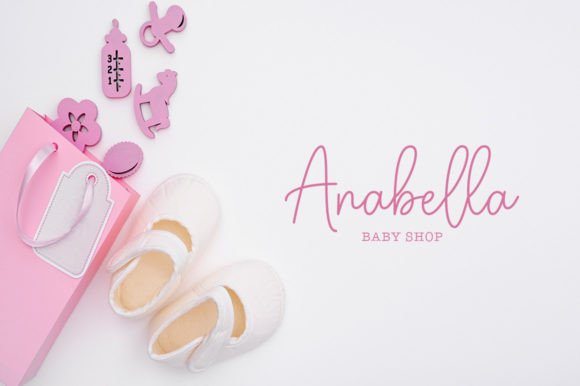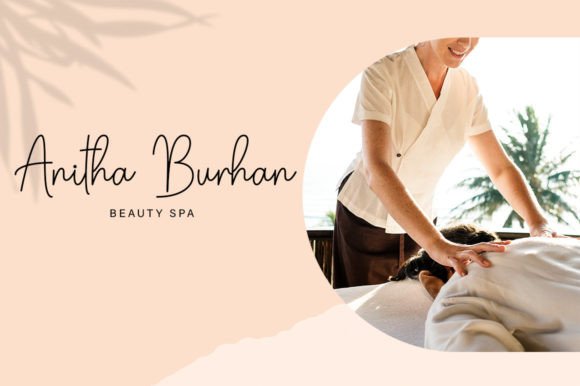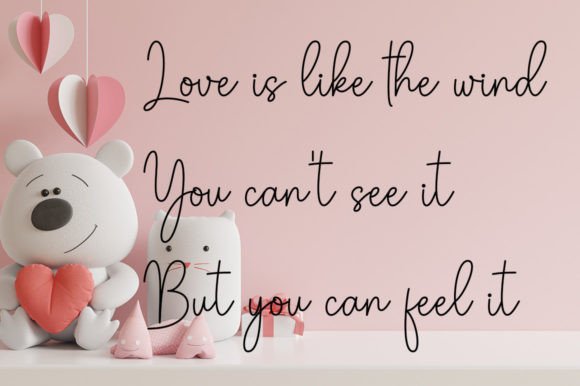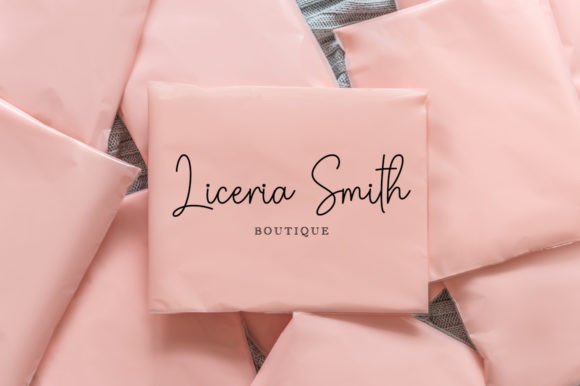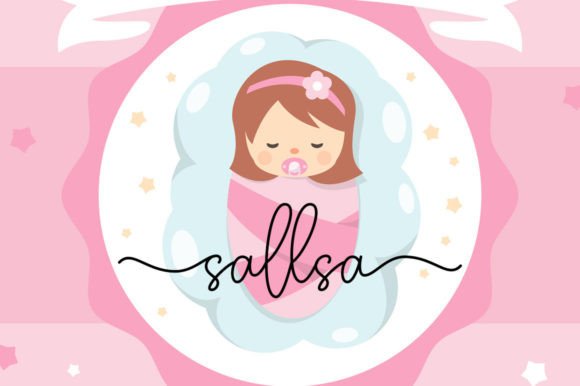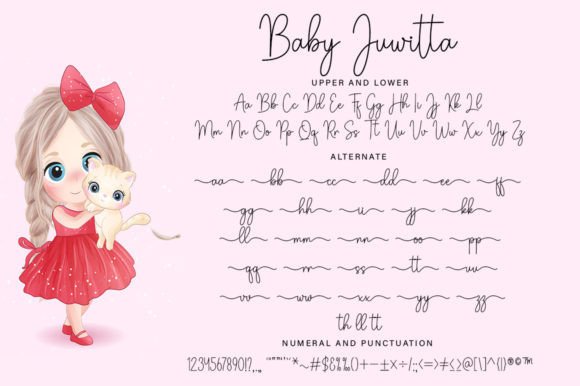
Baby Juwitta Font: Elevate Your Designs with Elegance and Sophistication
In the world of typography, fonts play a crucial role in conveying the tone and personality of a design. For designers and crafters seeking a monoline script font that exudes elegance and sophistication, Baby Juwitta is an exceptional choice. This beautifully crafted font is designed to enhance any creation, making it a valuable addition to your font library.
What is Baby Juwitta Font?
Baby Juwitta is a monoline script font that boasts a neat and highly detailed design. Its sleek lines and fluid curves create a sense of movement and fluidity, making it perfect for a wide range of design applications. Whether you’re working on a branding project, crafting a social media graphic, or creating a digital illustration, Baby Juwitta is sure to impress.
Key Features of Baby Juwitta Font
- Monoline Script Design: Baby Juwitta features a monoline script design, characterized by its sleek and fluid lines. This design style gives the font a sense of elegance and sophistication, making it perfect for high-end designs.
- PUA Encoding: Baby Juwitta is PUA (Private Use Area) encoded, which means you can access all glyphs and swashes with ease. This feature allows you to unlock the full potential of the font and experiment with different design elements.
- Highly Detailed: The font is meticulously crafted with attention to detail, ensuring that every letterform and swash is beautifully designed.
- Versatile: Baby Juwitta can be used for a wide range of design applications, from branding and advertising to digital illustrations and crafts.
Why Choose Baby Juwitta Font?
With so many fonts available, why should you choose Baby Juwitta? Here are a few compelling reasons:
- Elegance and Sophistication: Baby Juwitta exudes elegance and sophistication, making it perfect for high-end designs and luxury brands.
- Flexibility: The font’s versatility allows you to use it for a wide range of design applications, from digital designs to print materials.
- Easy to Use: With PUA encoding, accessing glyphs and swashes is a breeze, making it easy to experiment with different design elements.
- Unique Design: Baby Juwitta’s monoline script design sets it apart from other fonts, ensuring that your designs stand out from the crowd.
Design Applications for Baby Juwitta Font
Baby Juwitta is an incredibly versatile font that can be used for a wide range of design applications, including:
- Branding and Advertising: Use Baby Juwitta to create stunning brand identities, logos, and advertising materials that exude elegance and sophistication.
- Digital Illustrations: Add a touch of elegance to your digital illustrations with Baby Juwitta’s beautiful letterforms and swashes.
- Crafts and DIY Projects: Use Baby Juwitta to create beautiful craft projects, such as handmade cards, gift tags, and scrapbooking pages.
- Social Media Graphics: Elevate your social media graphics with Baby Juwitta’s sleek and sophisticated design.
In conclusion, Baby Juwitta is an exceptional monoline script font that offers elegance, sophistication, and versatility. With its PUA encoding, highly detailed design, and flexibility, it’s an excellent addition to any font library. Whether you’re a designer, crafter, or DIY enthusiast, Baby Juwitta is sure to elevate your designs and help you create stunning visual content.